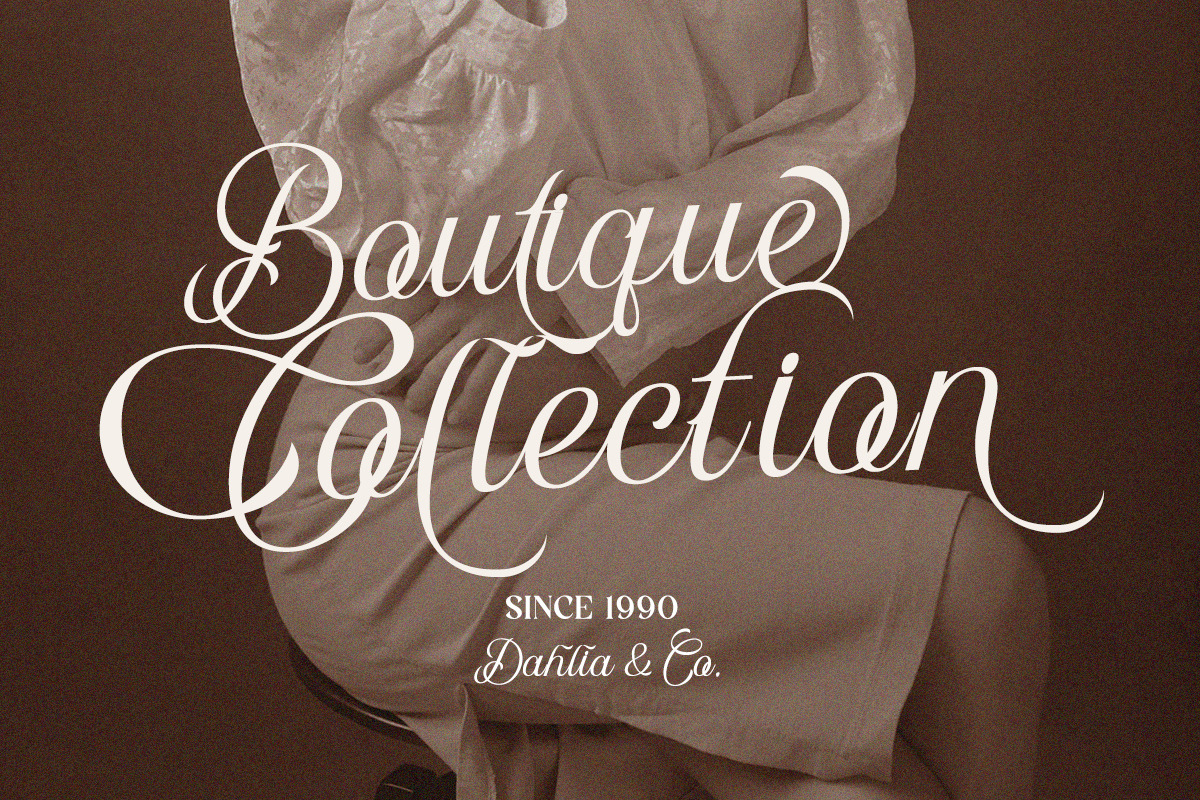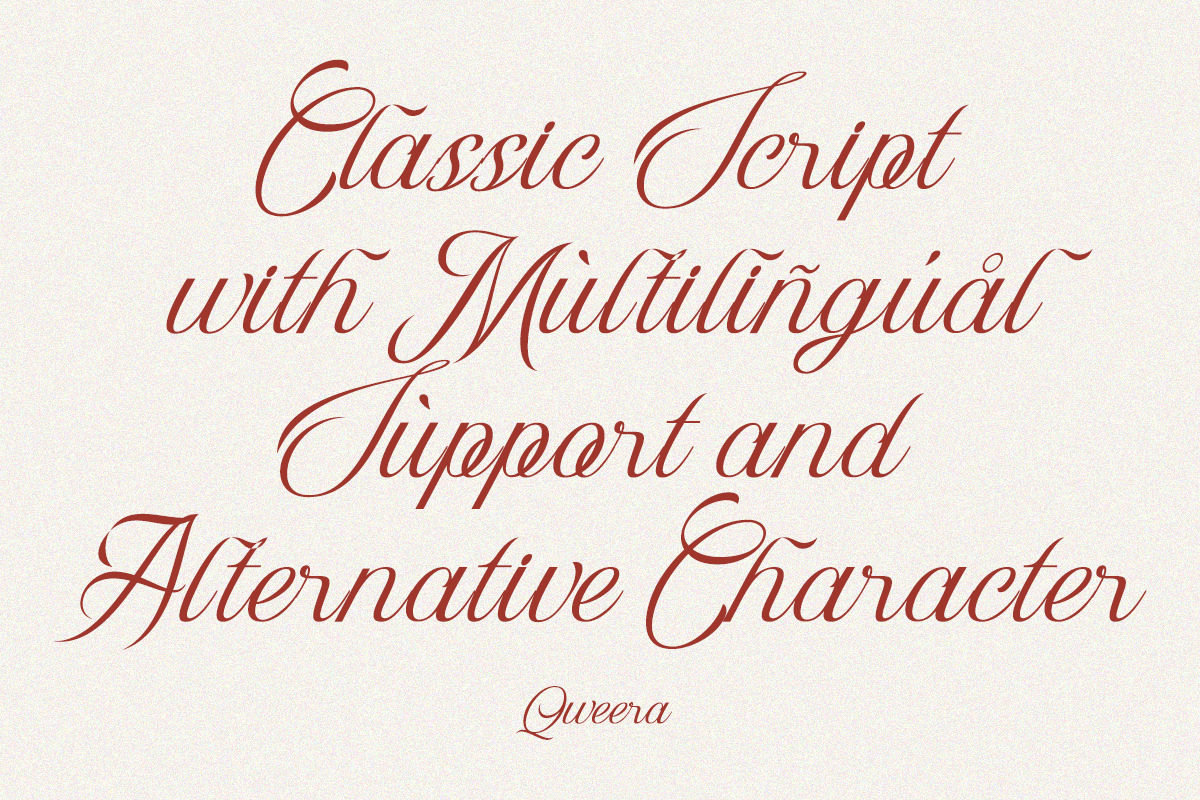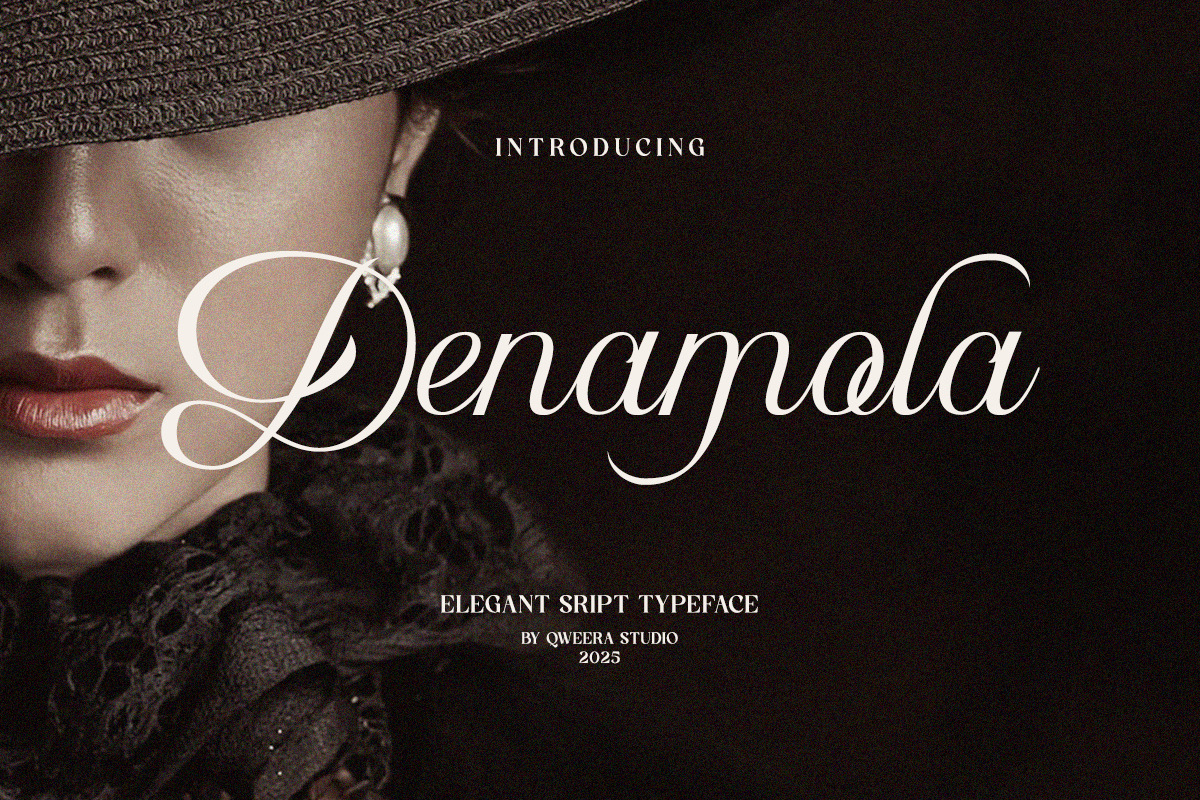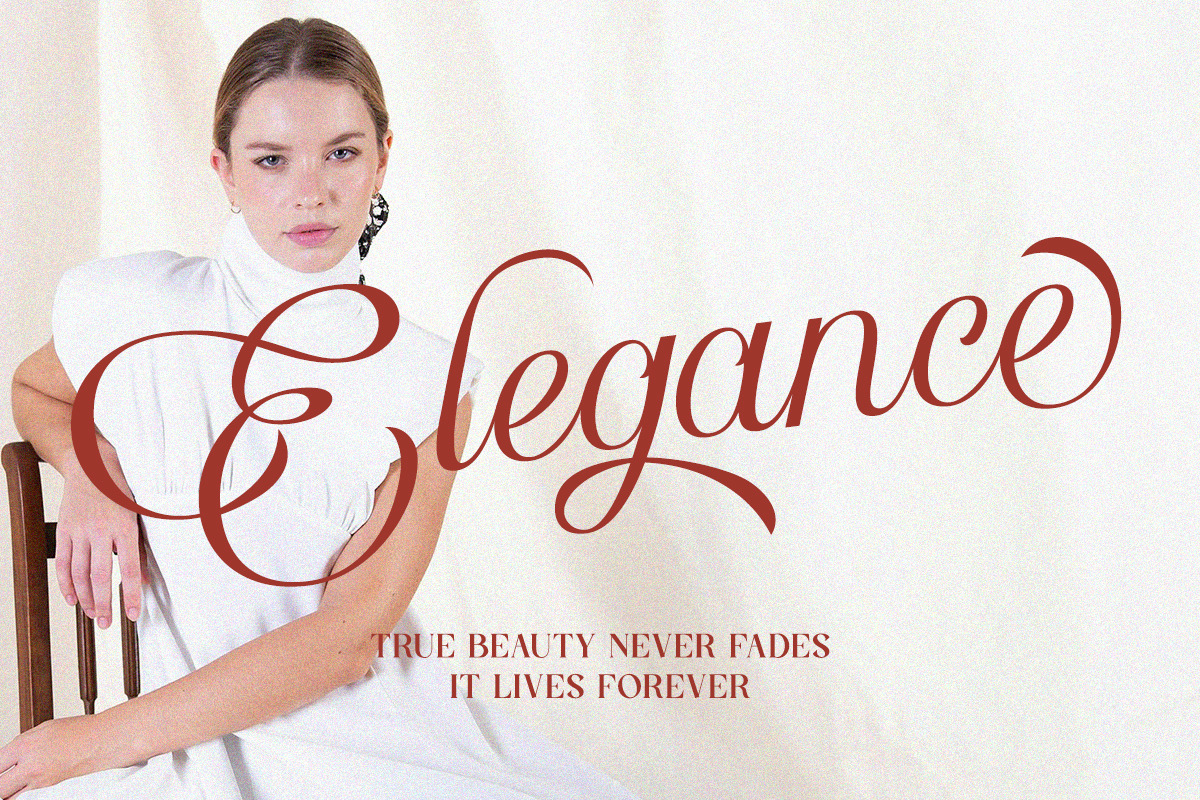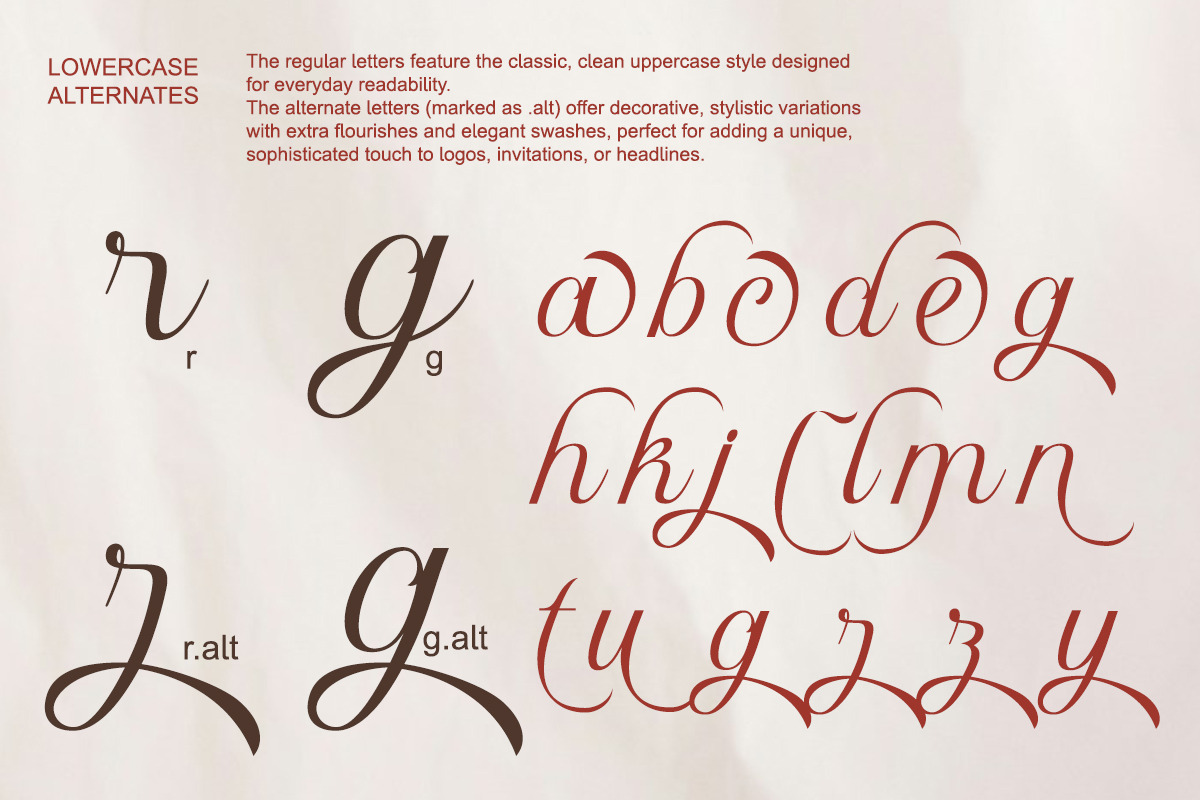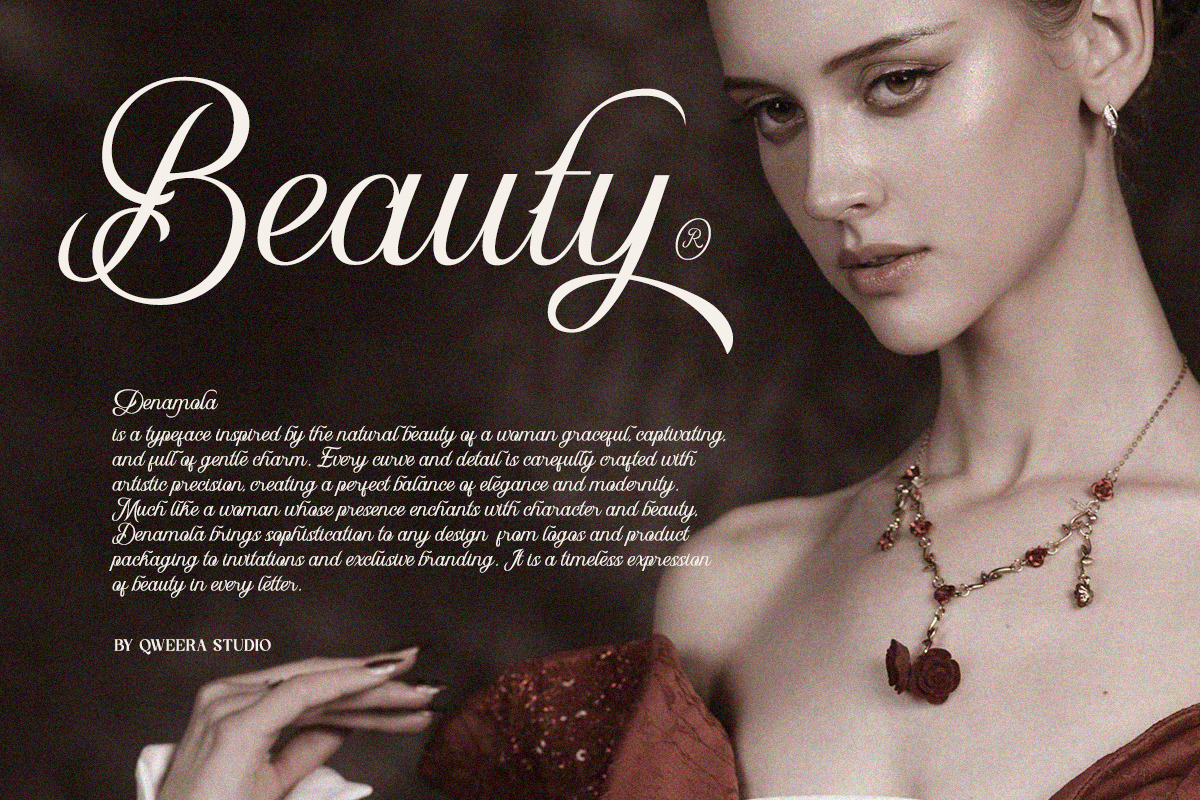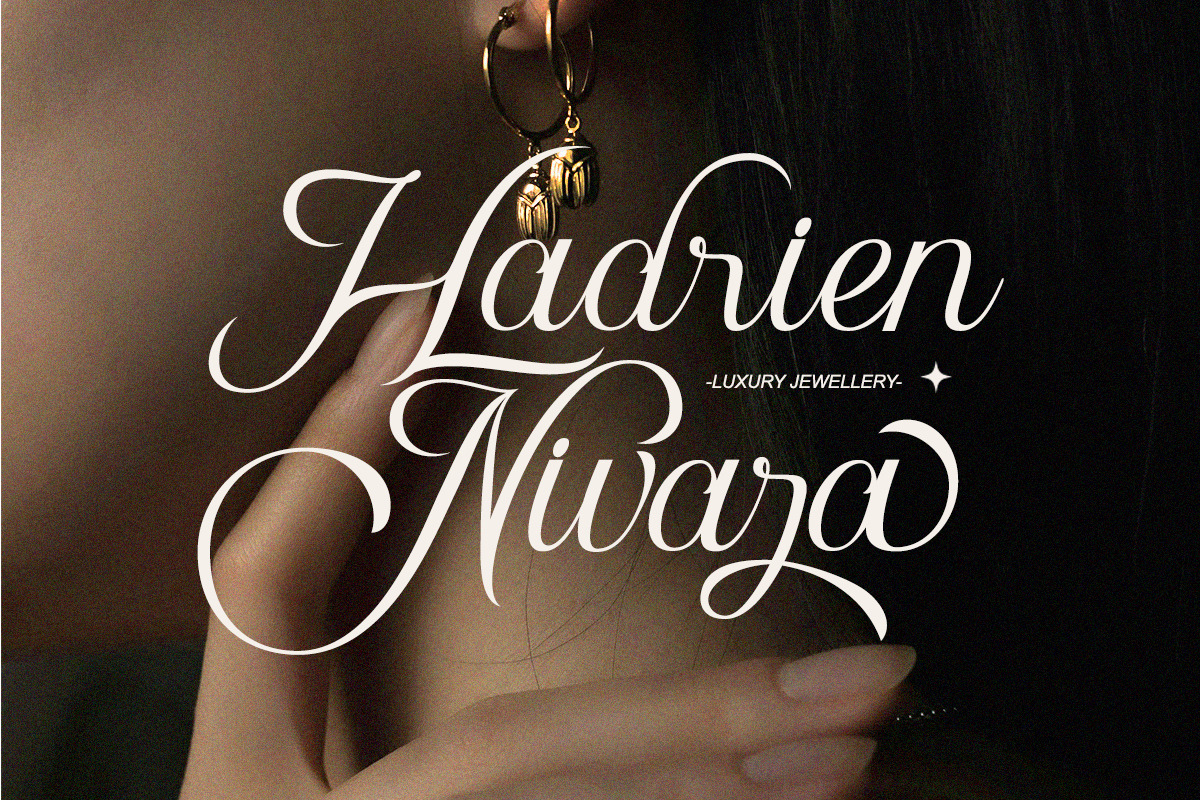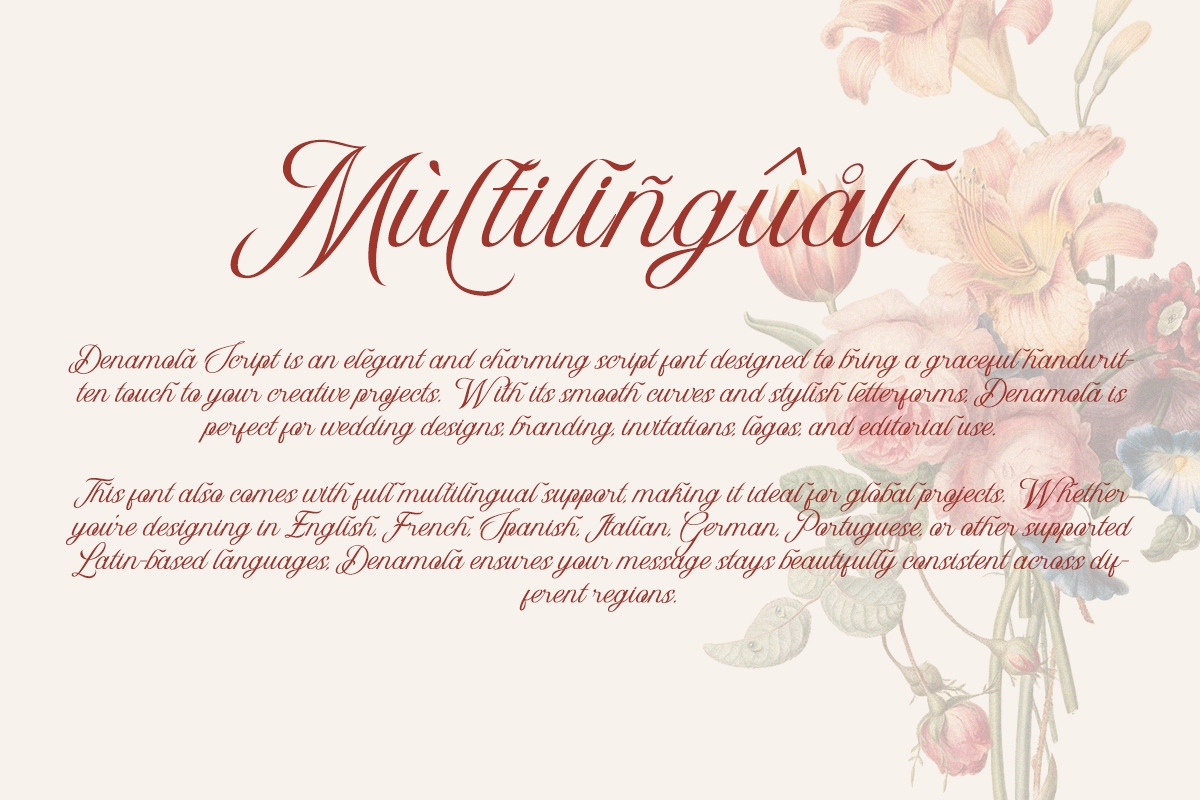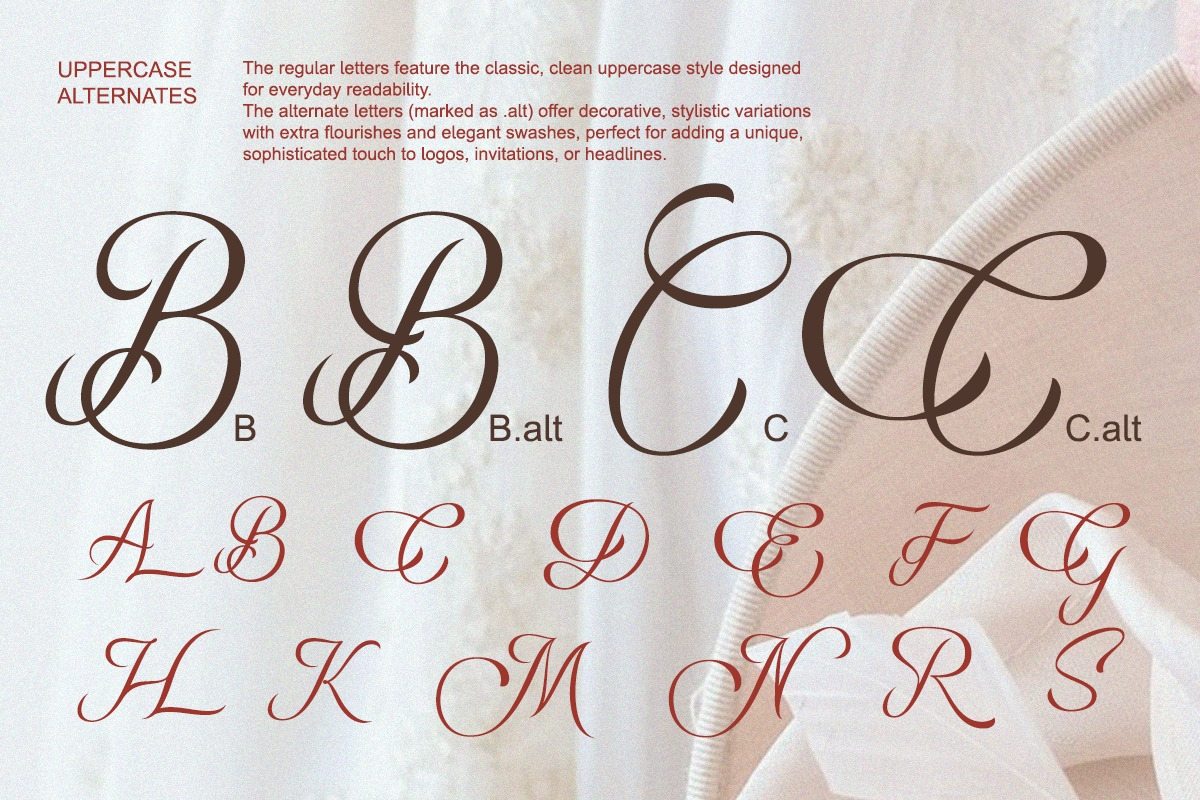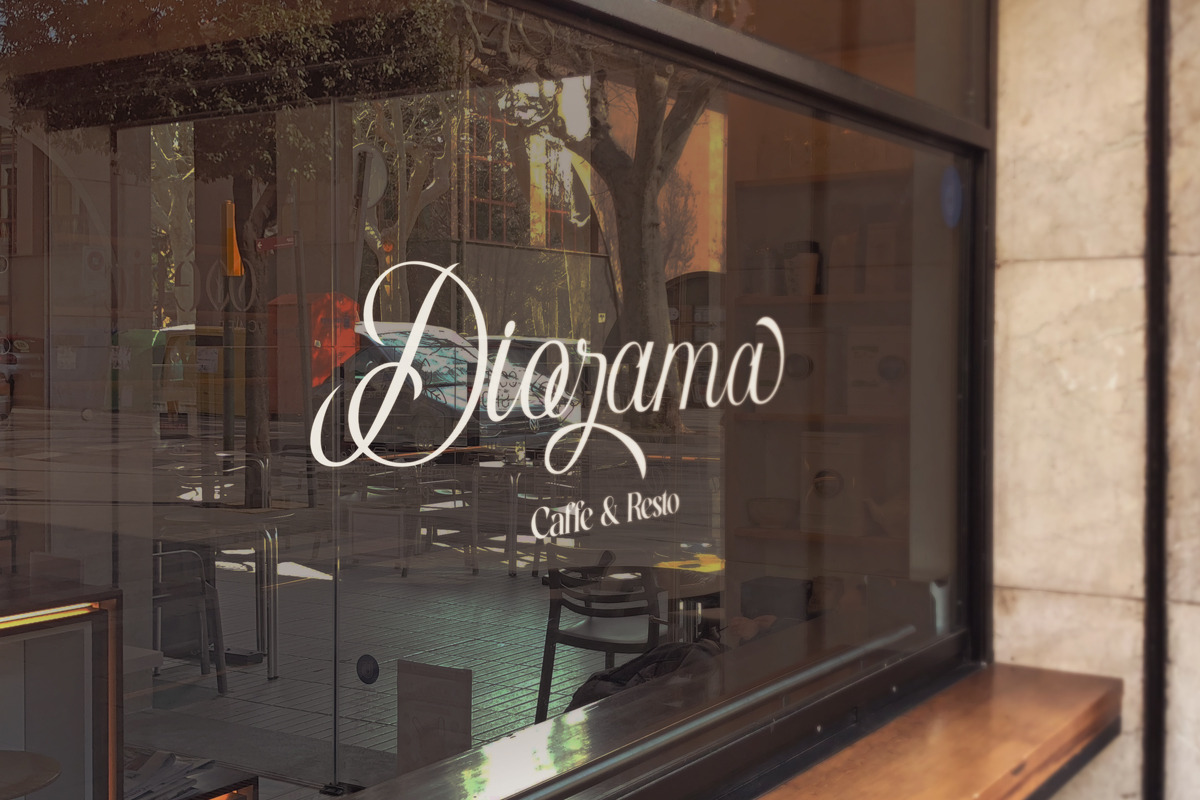
Denamola - Elegant Script Font
Introducing Denamola – Elegant Script Typeface, a beautifully designed script font that combines graceful strokes with timeless sophistication. With its refined letterforms and fluid curves, Denamola captures the perfect balance of luxury, romance, and classic beauty.
This font is tailored for projects that require a high-end and expressive touch. From wedding invitations, branding, logos, fashion designs, packaging, to editorial layouts, Denamola elevates every design with elegance and refinement.
Crafted with attention to detail, Denamola includes alternates, stylish swashes, and full multilingual support, giving designers flexibility to create unique and captivating typography.
Make your words unforgettable with Denamola – the elegant script typeface that embodies class and artistic charm.
✨ Font Features
- Uppercase & lowercase script
- Alternates & stylistic swashes
🎯 Perfect For
- Wedding invitations
- Luxury branding & logos
- Elegant packaging
- Fashion & editorial design
- Personal signatures
- Social media & digital content